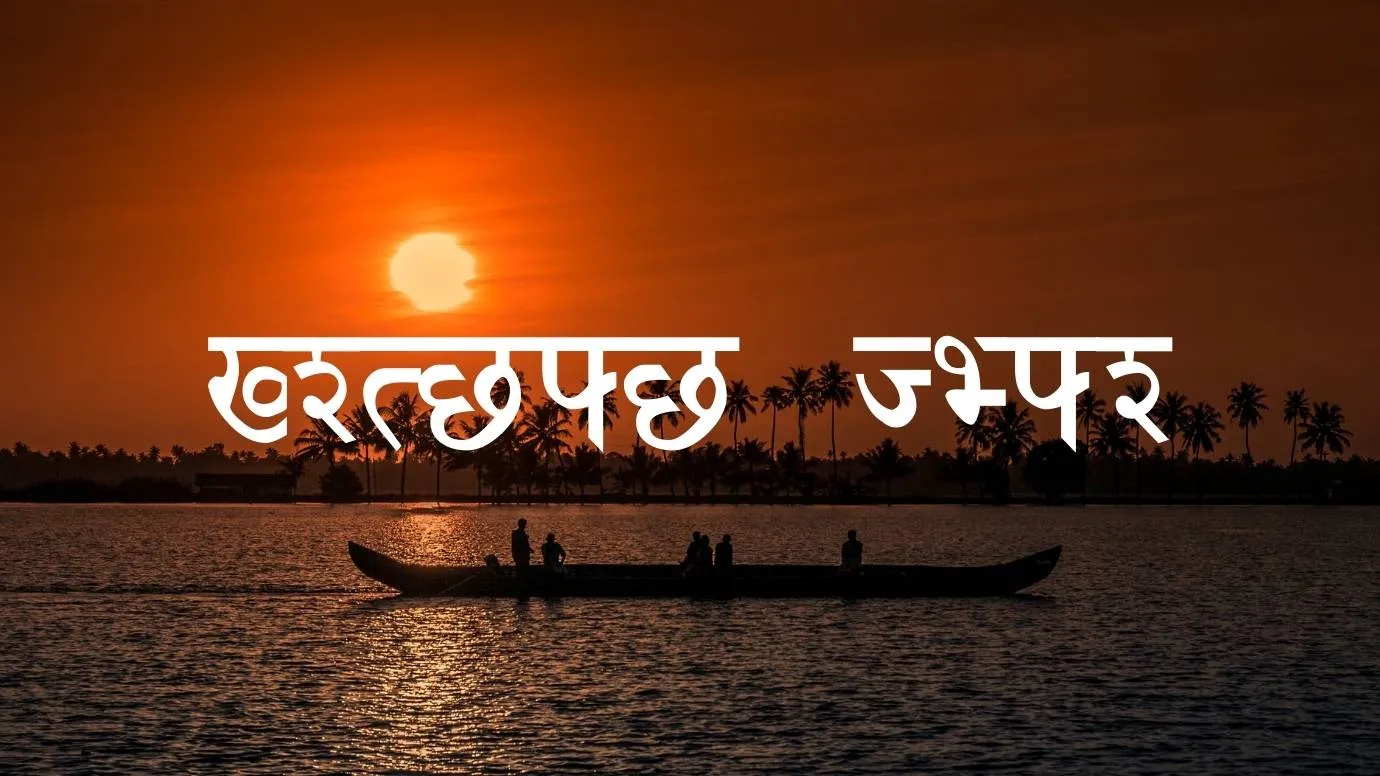
Pizza By Alfredo Font is a handwritten typeface. This unique style of font has quickly become a favorite among graphic designers and typographers alike, as it evokes feelings of nostalgia and authenticity.
With its distinct look and texture, Pizza By Alfredo typeface is a great choice for creating eye-catching posters, logos, packaging designs, or even websites. Pizza By Alfredo Font has a set of characters including numbers, letters, and special symbols, allowing you to create text in a wide variety of styles.
You can use this typeface with the pairing of the black jack font. You can use this typeface in the making of posters, banners, book titles, fashion designing, and many other projects.
Designer of Pizza By Alfredo Font
This attractive and stylish typeface is designed by an American typeface designer NIC for the foundry FontPanda in 2013. This FontPanda foundry also published many famous typefaces.
This font style is created with a unique and regular style. This single attractive style is a combination of characteristics, including capital alphabets, small alphabets, digits, symbols, special characters, punctuations, glyphs, and a large number of language support.
Can I use Pizza by Alfredo typeface for a design project?
Yes, Pizza by Alfredo is a popular typeface choice for designers due to its unique style and texture. It can be used to create striking posters, logos, packaging designs, and websites, making it a great choice for any design project.
Can I use Pizza by Alfredo font on my Poster?
Yes, Pizza by Alfredo is a great typeface for creating posters. Its unique style will make your poster stand out from the rest.
Is Pizza by Alfredo typeface good for headings?
Yes, Pizza by Alfredo is a great typeface choice for headings and titles due to its distinctive style and clean appearance. It can add an extra touch of pizzazz to your headings and make them stand out.